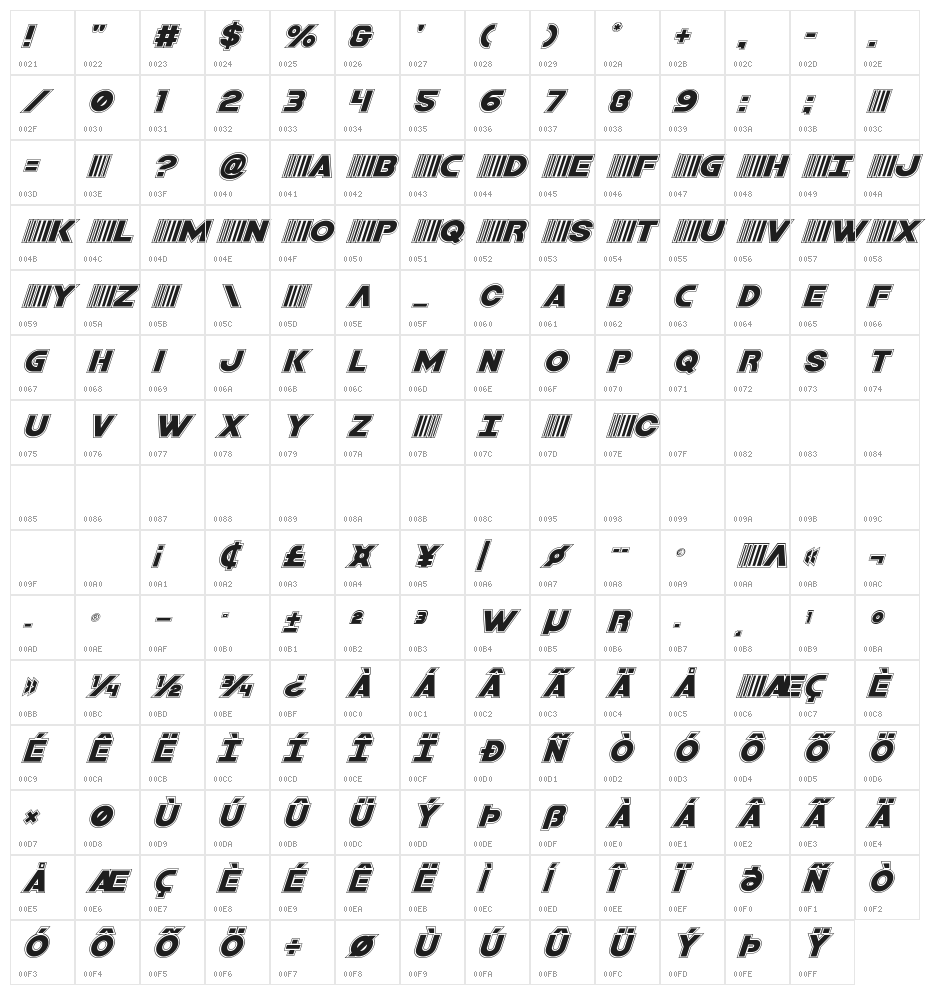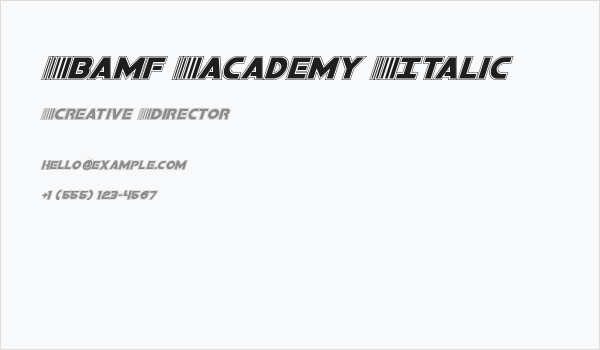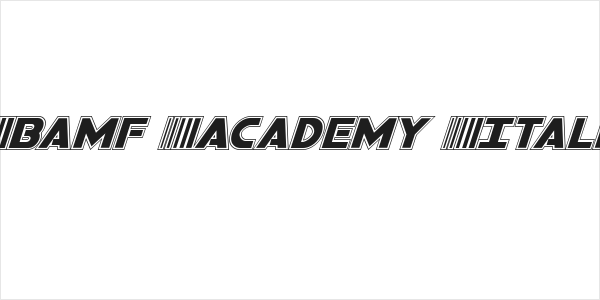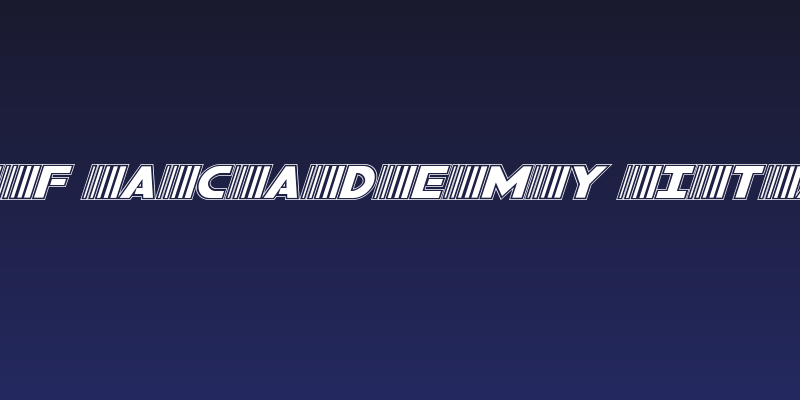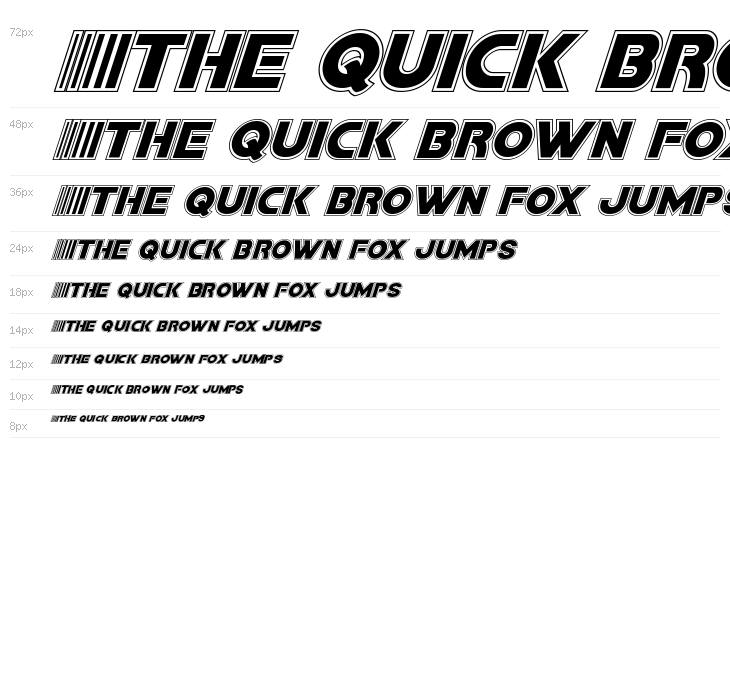
Bamf Academy Italic Font
Bamf Academy Italic Description
This font features a bold and dynamic style with a distinct italic slant, giving it a sense of movement and energy. The characters are outlined with a double line, adding depth and a three-dimensional effect. The uppercase letters are strong and impactful, making them ideal for attention-grabbing headlines. The numerals are equally bold, ensuring clarity and visibility. Special characters are included, maintaining the font's cohesive style. This font's unique design makes it suitable for projects that require a modern and edgy aesthetic.